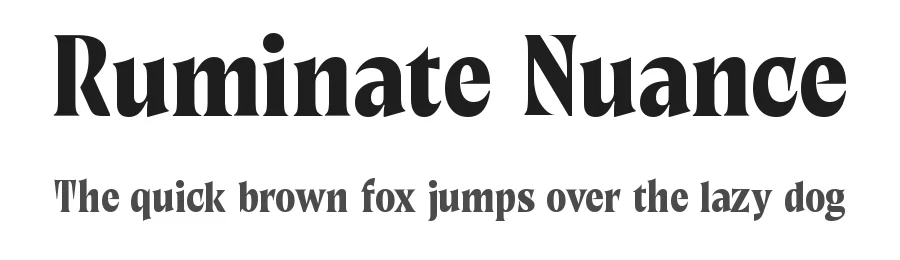
About Mistar Font
Mistar is a serif font designed by Graphicxell. It includes 140 glyphs, a regular weight, TTF (TrueType) format, and 202 languages. Mistar is free to download; check the license details on this page before commercial use. Serif fonts like Mistar work best for body text, editorial layouts, book covers, and classic branding.
Mistar Specifications
| Font Family | Mistar |
| Full Name | Mistar |
| Glyph Count | 140 glyphs |
| PostScript Name | MistarRegular |
| Designer | Usman Albaehaqi |
Mistar Font is a versatile serif font that works for both headings and body text. Pair it with a contrasting sans-serif or slab serif font to add visual interest and a clear distinction between titles and body copy.
Mistar Font
by Graphicxell